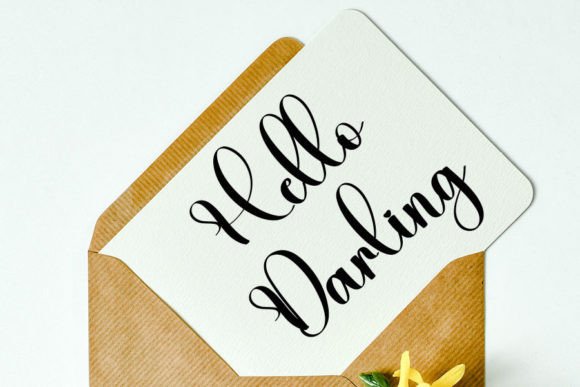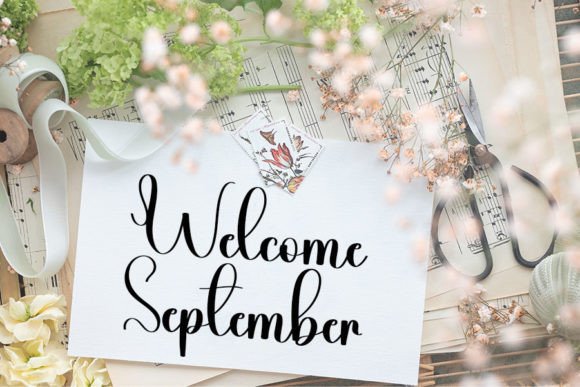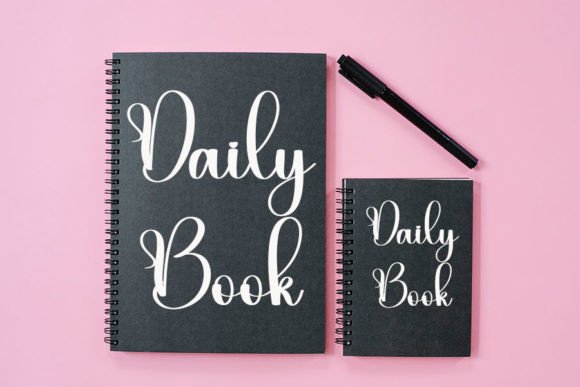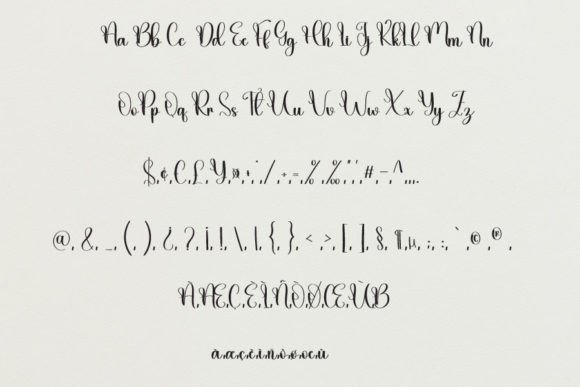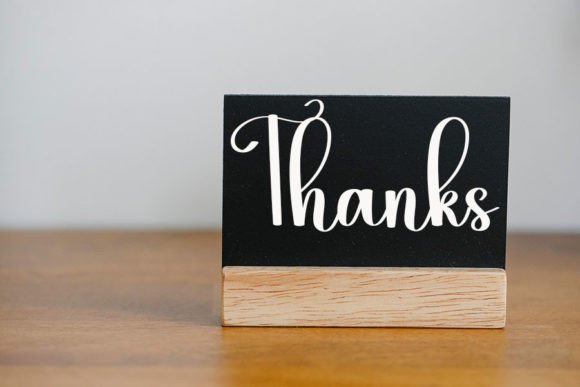
Miniathure Font
About Miniathure Font
“Miniathure” is a sweet and beautiful handwritten font that adds a touch of charm and luxury to your design projects. With characters that gracefully dance along the baseline, this font has the power to infuse a sense of elegance into any creative endeavor you wish to undertake.
The appeal of “Miniathure” lies in its ability to convey a sense of grace and sophistication. Its handwritten style creates a visually captivating and luxurious aesthetic that can enhance a wide range of design elements, making it suitable for various creative applications.
One of the standout features of “Miniathure” is the way its characters interact with the baseline. This unique characteristic adds a dynamic and elegant touch to your text, making it perfect for projects where you want to make a memorable impression.
When you incorporate “Miniathure” into your projects, you can expect your creations to radiate a sense of refinement and beauty. This font has the power to make your designs stand out and convey a sense of luxury and style to your audience.
In summary, “Miniathure” is more than just a font; it’s a design asset that can elevate your creative projects with its sweet and beautifully handwritten style. Its unique baseline interaction and luxurious appeal make it a valuable addition to your design toolkit. You can confidently use “Miniathure” to enhance any project, as it has the potential to bring a sense of grace and sophistication to your designs!